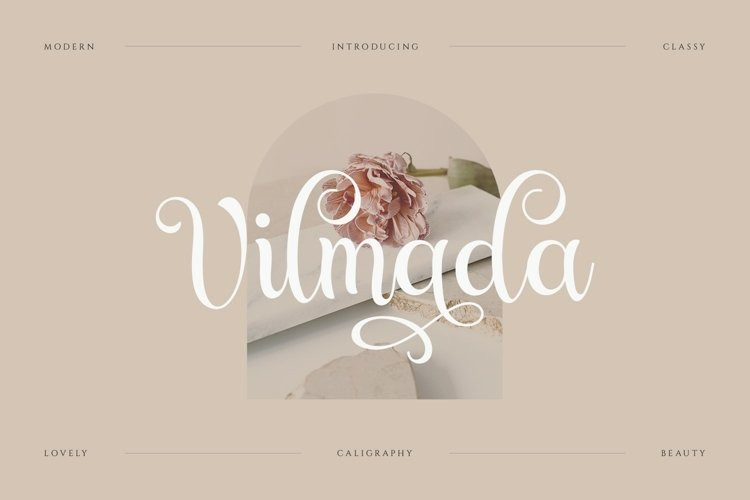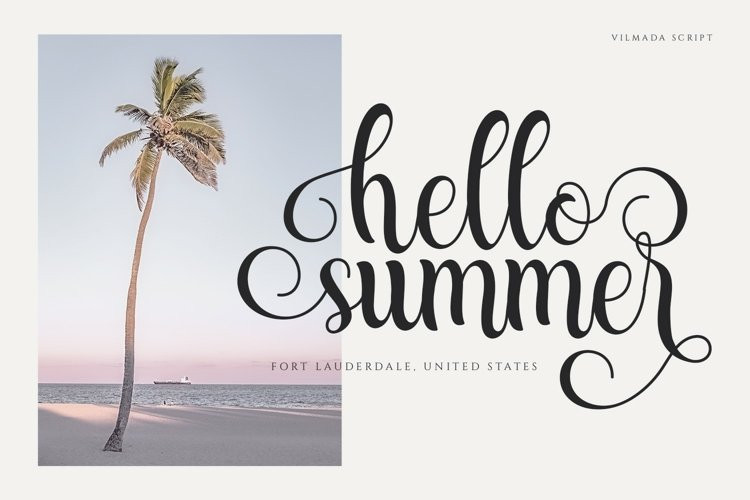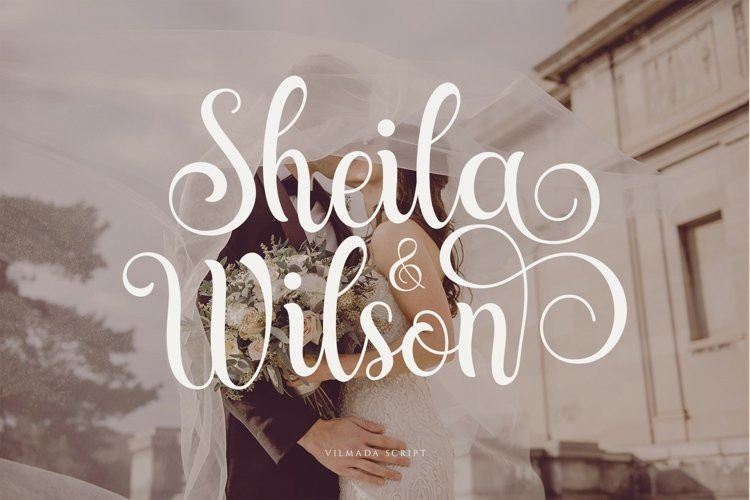
Vilmada Font
VilmadaVilmada Modern Handwritten Font make this font looks elegant, natural, stylish and perfect for any awesome projects that need handwriting taste.
Vilmada Modern Handwritten Font would perfect for branding design, blog headers, signatures, quotes, fashion apparel, business card, stationery and more…